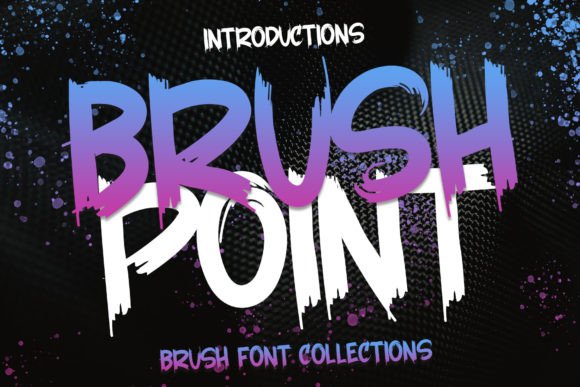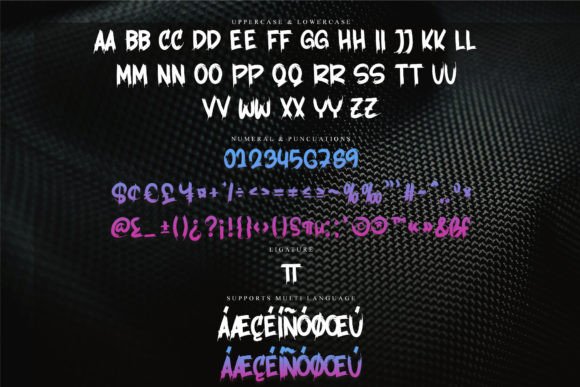
Brush Point Font
Brush Point is a stylish brush font with a contemporary atmosphere and impeccable form, inspired by timeless classic calligraphy. Balanced and varied, this font was designed to enhance the beauty of your projects.